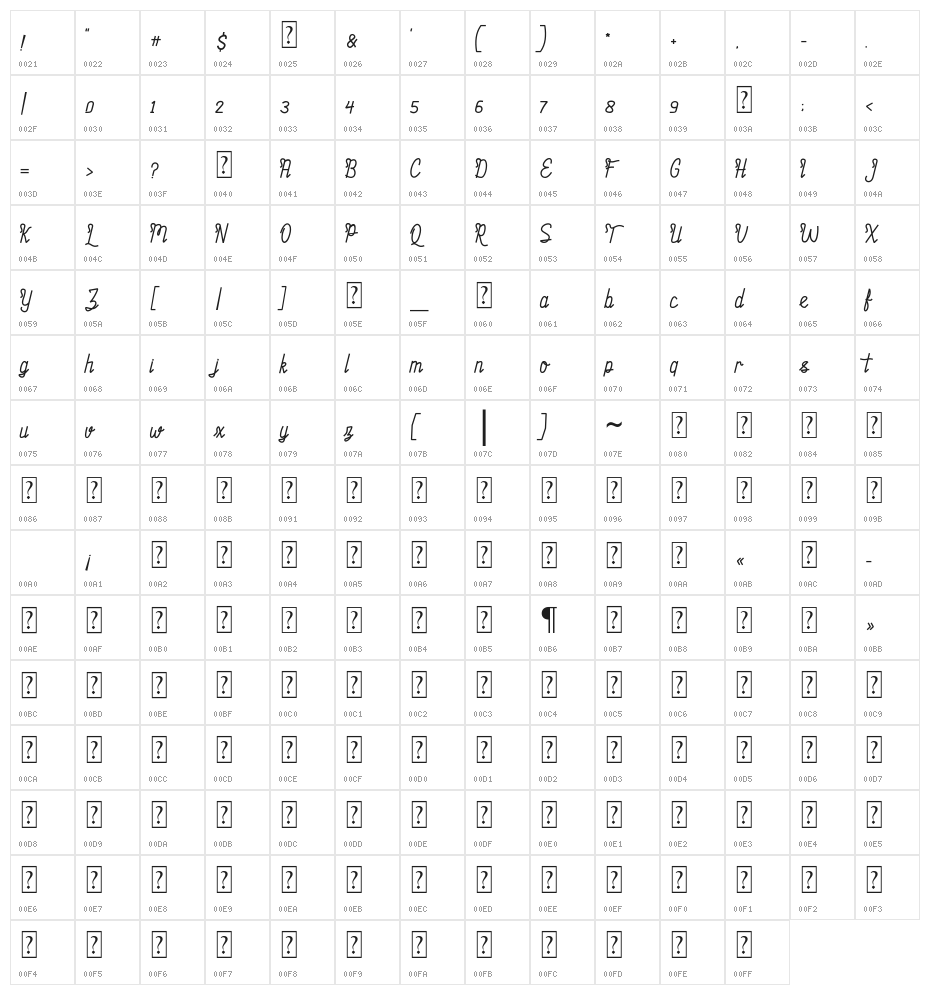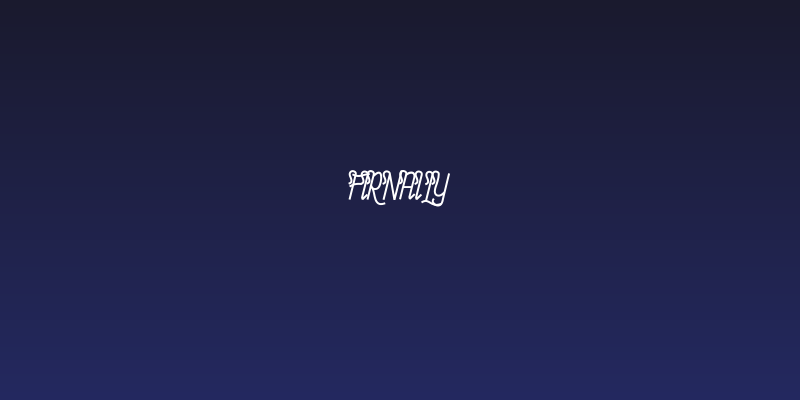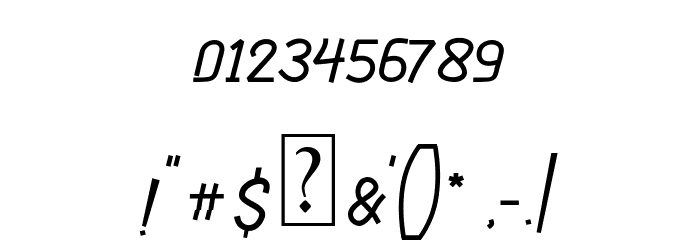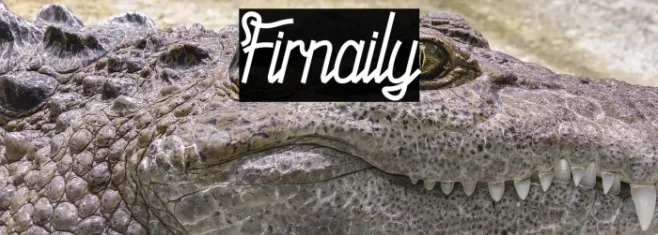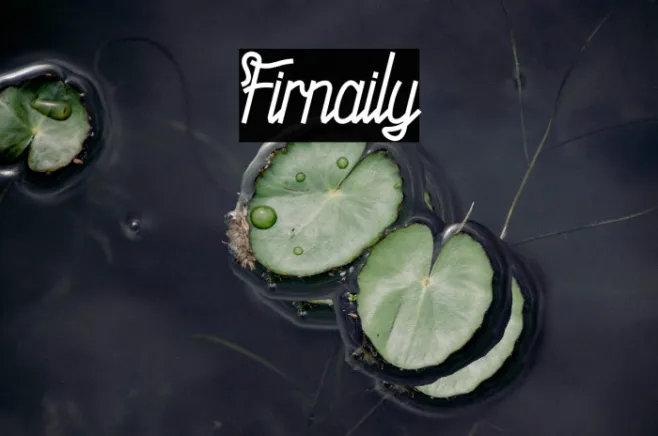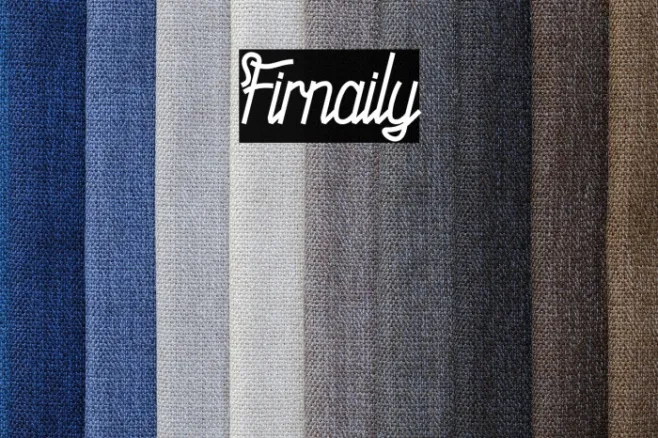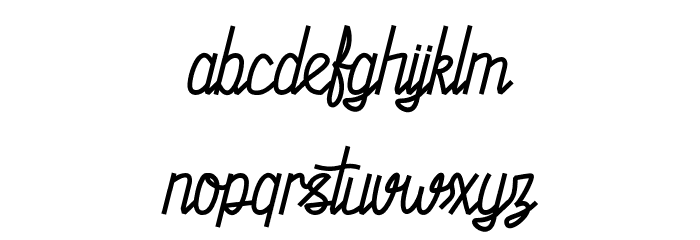
Firnaily Font
Firnaily Description
This font features a dynamic and flowing script style, characterized by its elegant and cursive letterforms. The uppercase letters are bold and slightly slanted, giving a sense of movement and grace. The lowercase letters maintain a consistent flow, with smooth connections between each character, enhancing readability while preserving the artistic flair. The numerals are designed to match the overall script style, maintaining a cohesive look across all characters. Special characters are thoughtfully integrated, ensuring they complement the font's aesthetic. This font is ideal for projects that require a touch of sophistication and elegance.
| Proposed Projects | Ideal for wedding invitations, elegant branding, greeting cards, and decorative quotes. |